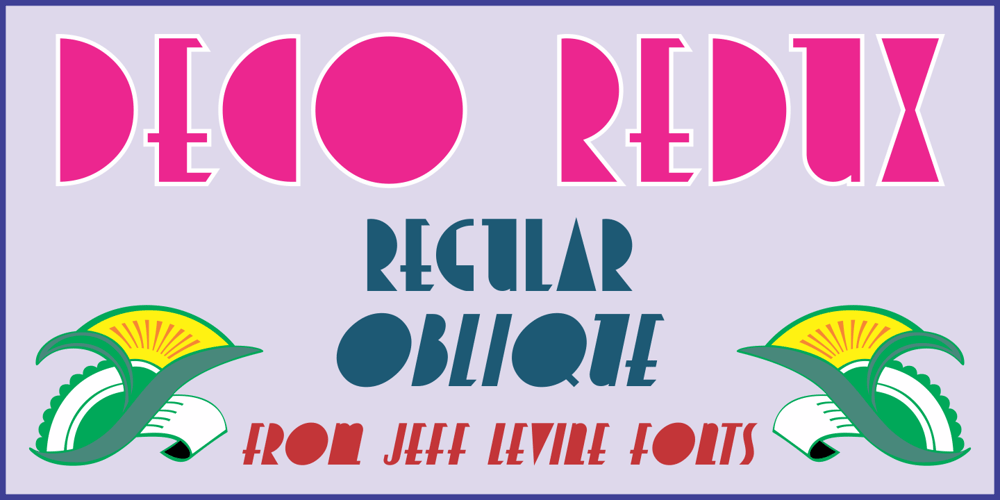
Deco Redux JNL Font Family was designed by Jeff Levine and published by Jeff Levine. Deco Redux JNL contains 2 styles and family package options. A long-set aside Art Deco typeface design begun (but not completed) may or not have been from a vintage source, but its roots go well back into Art Deco lettering.Taking the existing letters and thickening their weights, removing the counters and ending up with a completely new, solid alphabet design resulted in Deco Redux JNL, which is available in both regular and oblique versions.